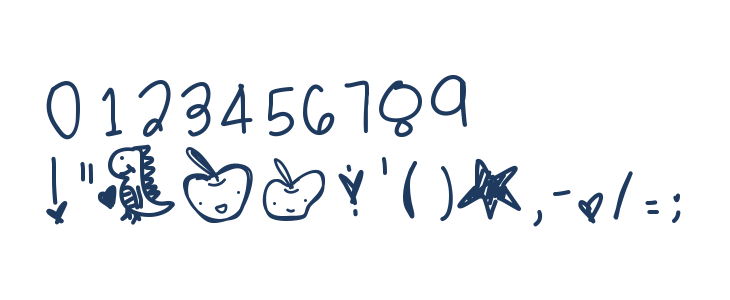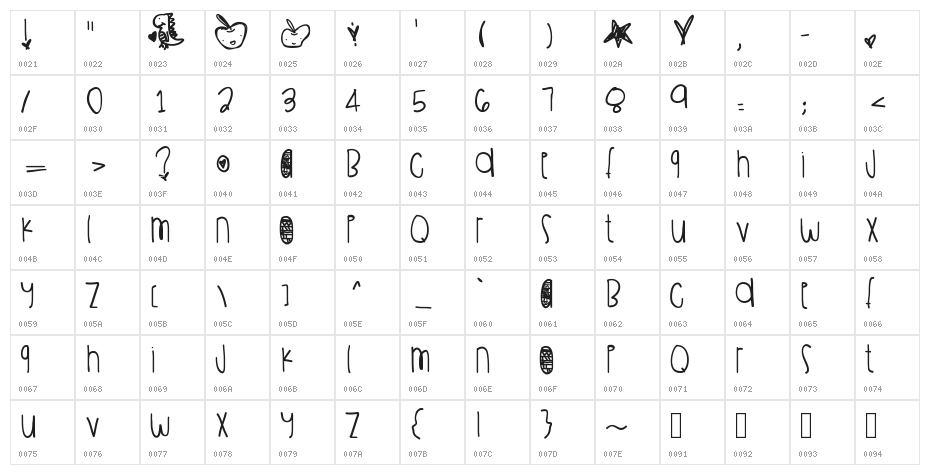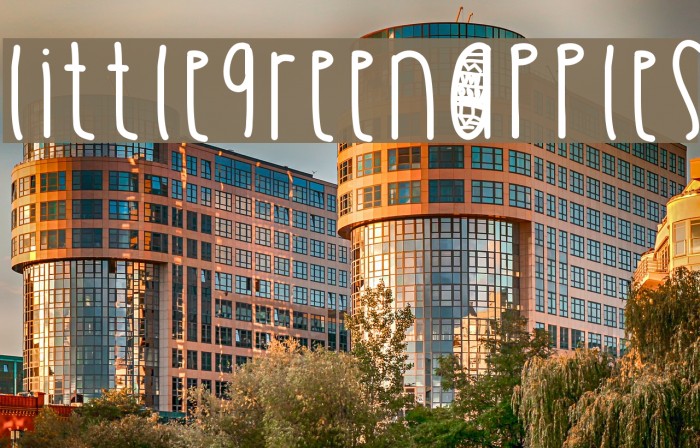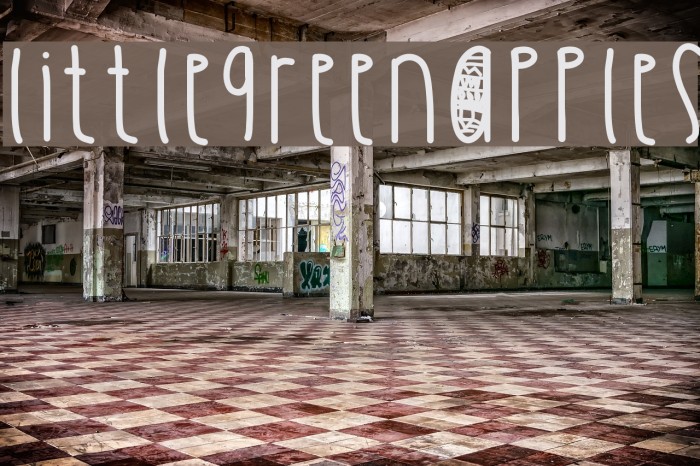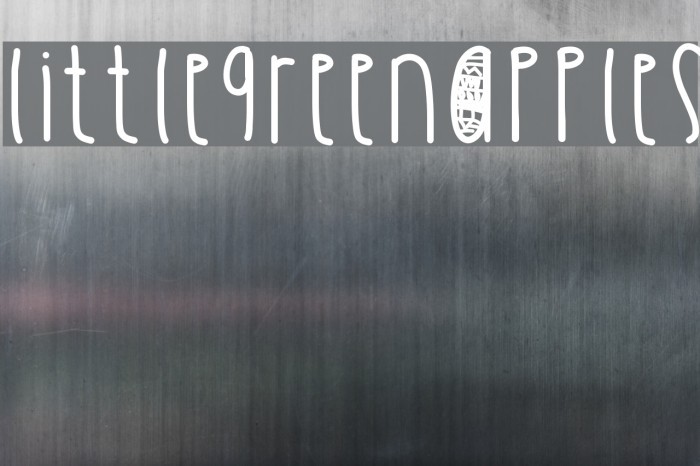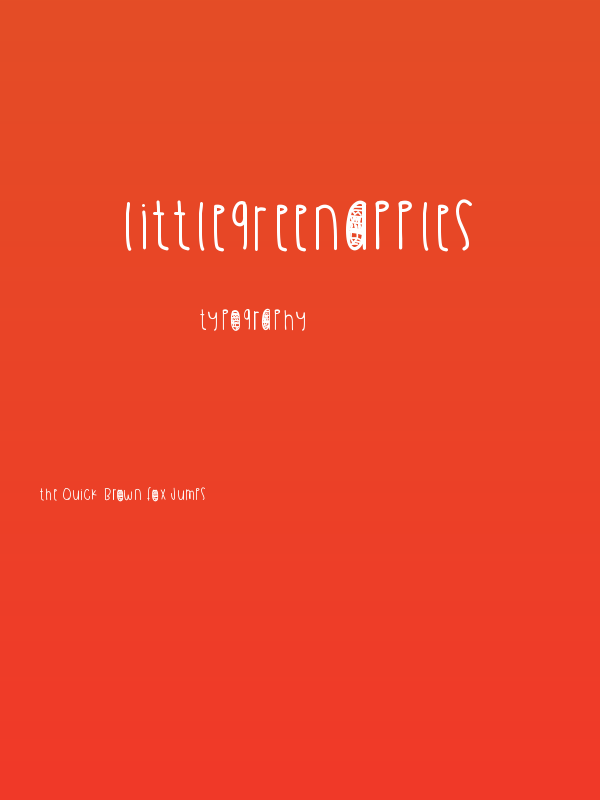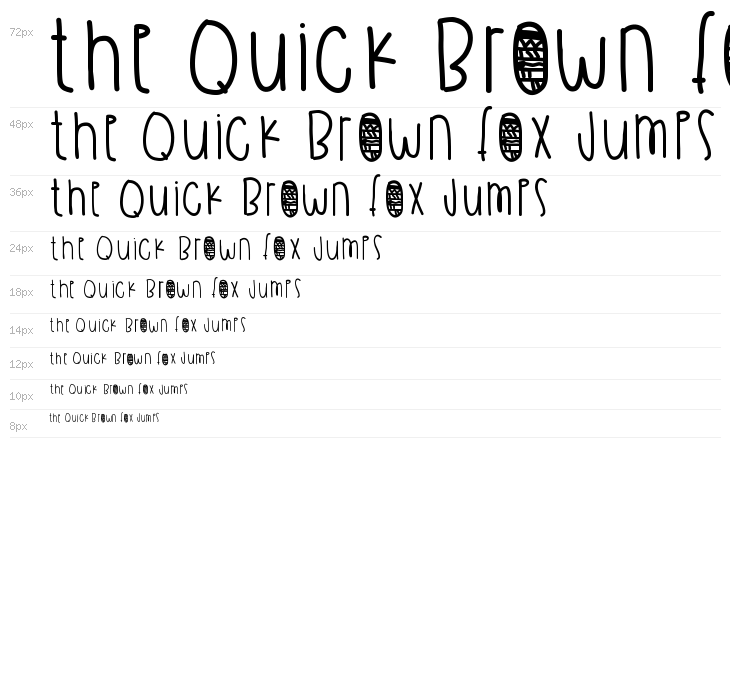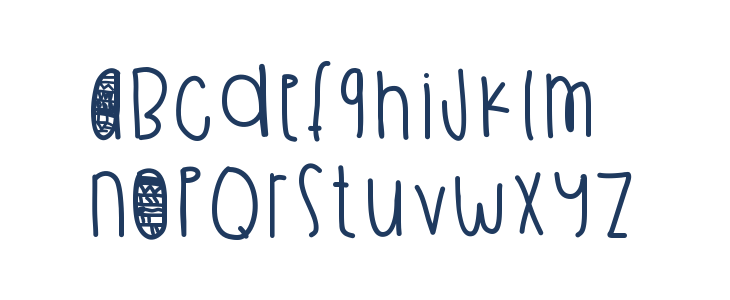
LittleGreenApples Font
LittleGreenApples Description
This playful and whimsical font features a hand-drawn style with a casual and friendly appearance. The letters are slightly irregular, giving it a charming and approachable feel. The uppercase and lowercase characters maintain a consistent style, with rounded edges and a slightly uneven baseline that adds to its informal nature. The numbers and special characters follow the same playful design, making it suitable for creative projects. The font's unique personality is enhanced by the inclusion of quirky illustrations, such as a dinosaur and apples, which add an extra layer of fun and creativity.
| Use Case | Logos, Headlines, Creative projects |
| Proposed Projects | Ideal for children's books, playful branding, greeting cards, and creative posters. |